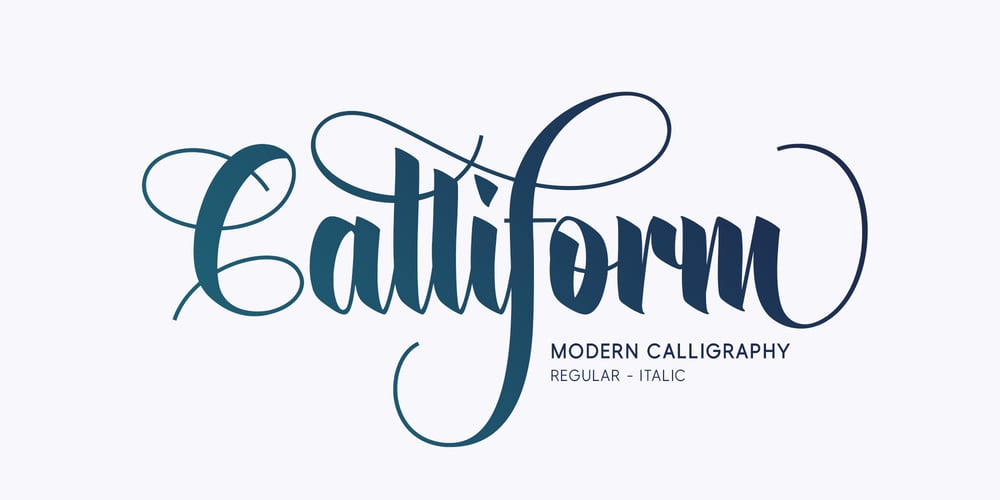
Calliform Font Family was designed by Dwi Ahidian and published by Lemonthe. Calliform contains 2 styles and family package options. Calliform is a modern script calligraphy font with an elegant classical touch, featuring sharp strokes and carefully designed curves. Equipped with 70 decorative alternate characters, it is a suitable choice for various design projects such as logos, branding, greeting cards, wedding designs, printing, advertising, packaging, wall decoration, titles, web design, and more.